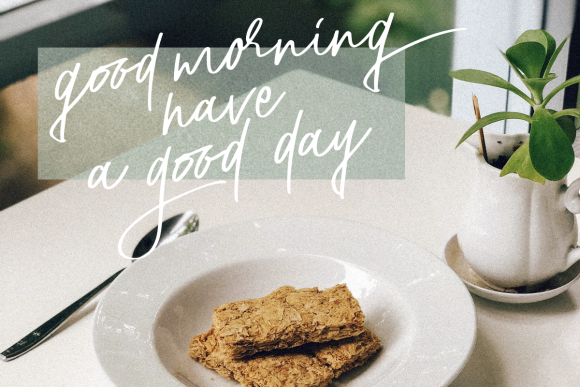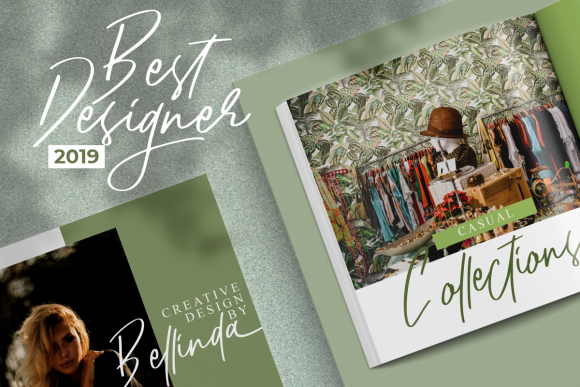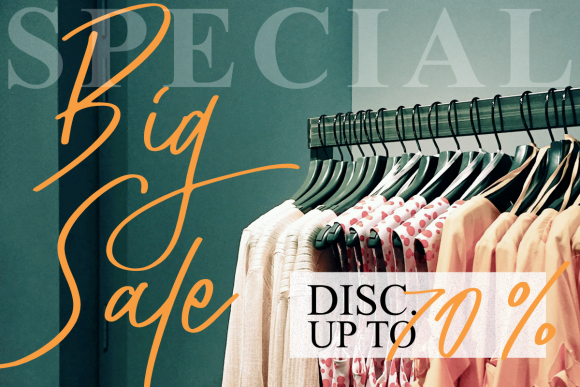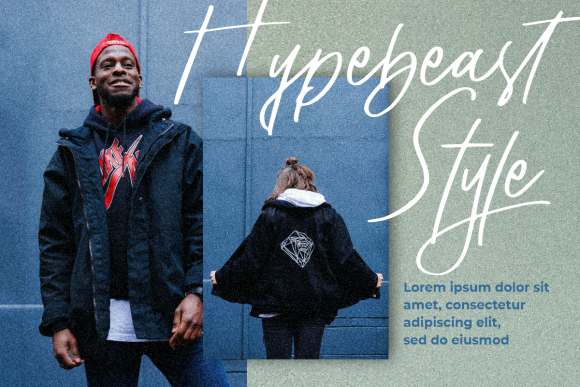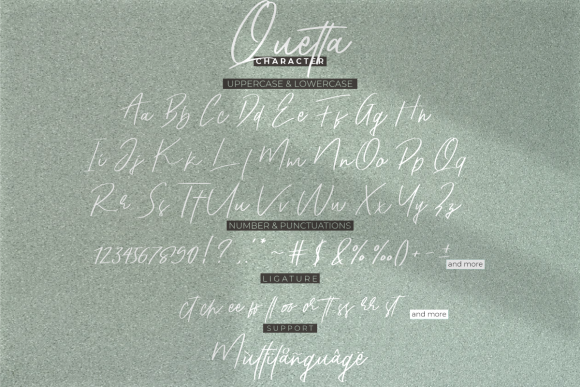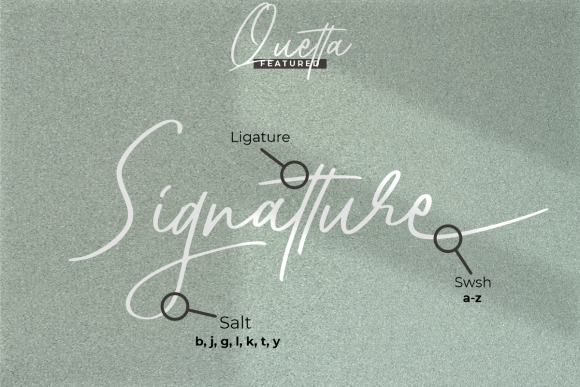
Introduction to Quetta Signature Font
Quetta Signature is a flexible yet dazzling script font.
This font is neatly crafted and highly detailed Quetta Signature is PUA encoded which means you can access all glyphs and swashes with ease.
Key Features of Quetta Signature Font